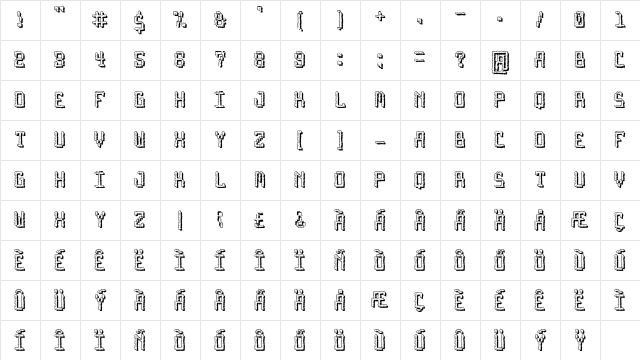
Arcade Nightmare Regular Free Font
Arcade Nightmare Regular
Foundry: Fr￿ric Rich
Designer: Fr￿ric Rich
Design Context for Arcade Nightmare
Arcade Nightmare is a composed and adaptable typeface that performs quietly and consistently across a wide range of design contexts.